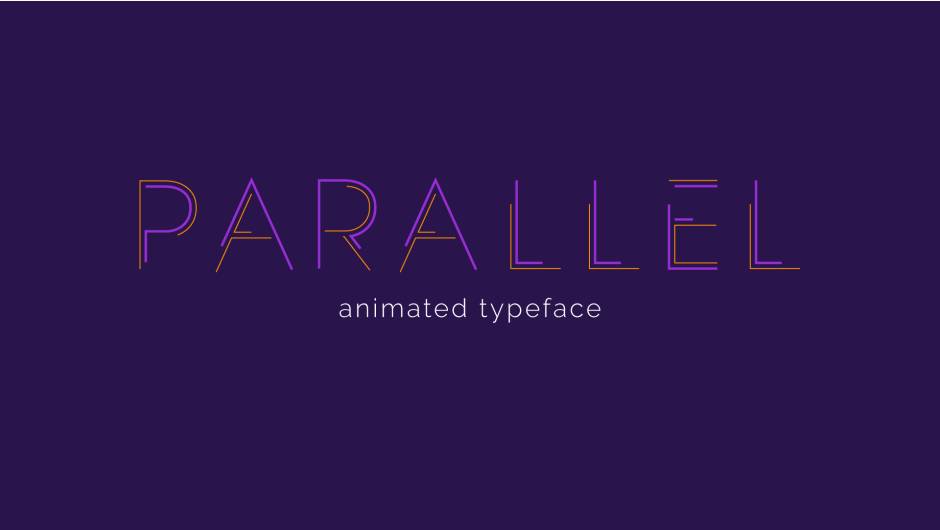
Parallel Animated Typeface v1.1.1 for After Effects — Stylish Typographic Motion Tool
If you work in motion graphics or video design, text animation is a must-have skill. But manual text animation in Adobe After Effects can be repetitive and clunky — especially when you want smooth, stylish letter animations without building everything from scratch.
That’s where Parallel Animated Typeface v1.1.1 for After Effects steps in — a lightweight animated font tool that gives you customizable, animated typefaces with control over look, spacing, animation timing, and visual style.
What Is Parallel Animated Typeface v1.1.1?
Parallel Animated Typeface is a font-centric After Effects script/plugin that lets you create and use animated typeface designs with a dockable user interface. The font itself is built from pairs of parallel lines that can be stylized, animated, and staggered — giving your titles and text layers a modern, graphic motion feel.
Instead of keyframing every single letter animation, Parallel gives you pre-animated control, letting you adjust:
Font style and look
Line weights and colors
Animation timing and staggering
Entrance and exit behavior
This makes it ideal for title sequences, branded intros, kinetic typography, and modern motion design sequences where animated text needs to stand out.
Why Motion Designers Should Care
Headers and title sequences are everywhere: intros, promos, social clips, trailers, UI transitions, and animated banners. But manually animating each text layer — letter by letter — eats time and limits creativity.
Parallel Animated Typeface simplifies this by giving you a stylized typeface with built-in animation controls, so you can:
Style animated text fast without building rigs from scratch
Preview and tweak animation timing easily
Maintain visual consistency across scenes
Speed up workflow when working with multiple text layers
It’s a motion designer’s shortcut that adds typographic personality without sacrificing control.
Key Features of Parallel Animated Typeface v1.1.1
🎯 Stylized Typeface With Parallel Lines
This isn’t a standard font — the typeface uses pairs of parallel lines to create a distinctive visual look. You can control:
Line thickness
Line color
Overall shape style
This makes your typography feel graphic and modern — ideal for stylized branding and title design.
⚡ Built-In Animation
Unlike static fonts, Parallel comes with default animation baked in. You don’t need to rig every letter manually — just apply the animated typeface and adjust parameters for:
Staggered entry
Letter-by-letter timing
Reversible animation
Entrance and exit effects
That saves tons of manual keyframing and keeps things professional and consistent.
🧠 Customizable UI Controls
The plugin integrates a dockable control panel inside After Effects. From there you can tweak animation, colors, offsets, and more — all without hunting through the timeline or expression controls.
🖊 Designed for Readability
Even with its stylized lines and animated behavior, the Parallel typeface stays legible. That’s important for real projects where design must be bold and readable.
Typical Use Cases
🎬 Title Sequences
Create clean, energetic title animations for films, shorts, or promos without building complex rigs.
📺 Broadcast Design
Use Parallel in broadcast graphics — channels, lower thirds, segment intros — to give text that modern, consistent motion look.
📱 Social Media & Ads
Animated typography is perfect for social content where text needs to catch attention quickly.
🧪 Experimental Motion Design
Use unique animated type styles as part of abstract animations, music visuals, or experimental VFX projects.
How It Works — Fast Breakdown
Install the Extension
Download and install the plugin or script in After Effects via aescripts.Apply the Typeface
Add the animated font to a text layer. The interface lets you assign the typeface easily.Customize Look & Feel
Adjust line weights, color, offset, and animation timing directly in the plugin panel.Animate & Refine
Animate entrance/exit timing, letter staggering, and motion style for the exact feel you want.Render
Because it’s built for AE, you render like any other comp — just with slick animated typography.
Pros & Cons (Straight)
Pros
Quick animated type with built-in controls
Strong stylized look for titles, promos, brand intros
Reduces manual animation workflows
Easy UI inside After Effects
Cons
Style may not fit every project (it’s graphic and specific)
Limited to animated font behavior rather than full rigging tools